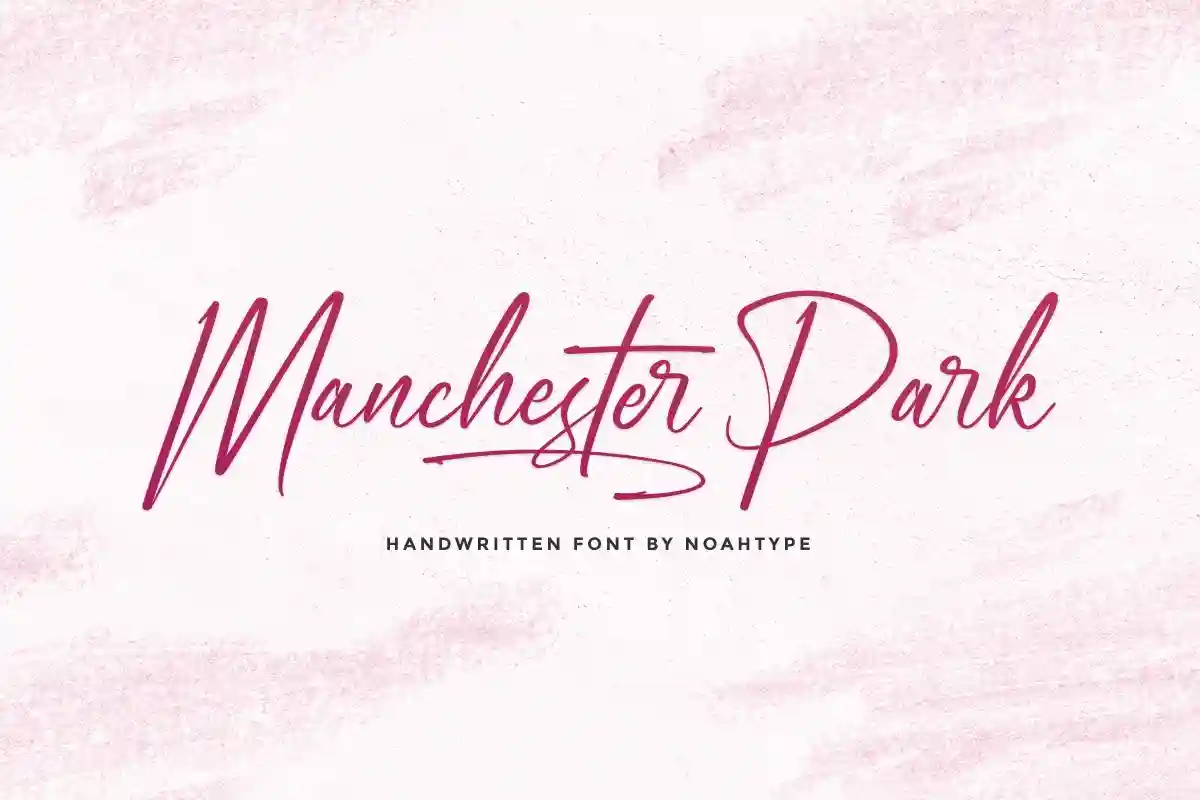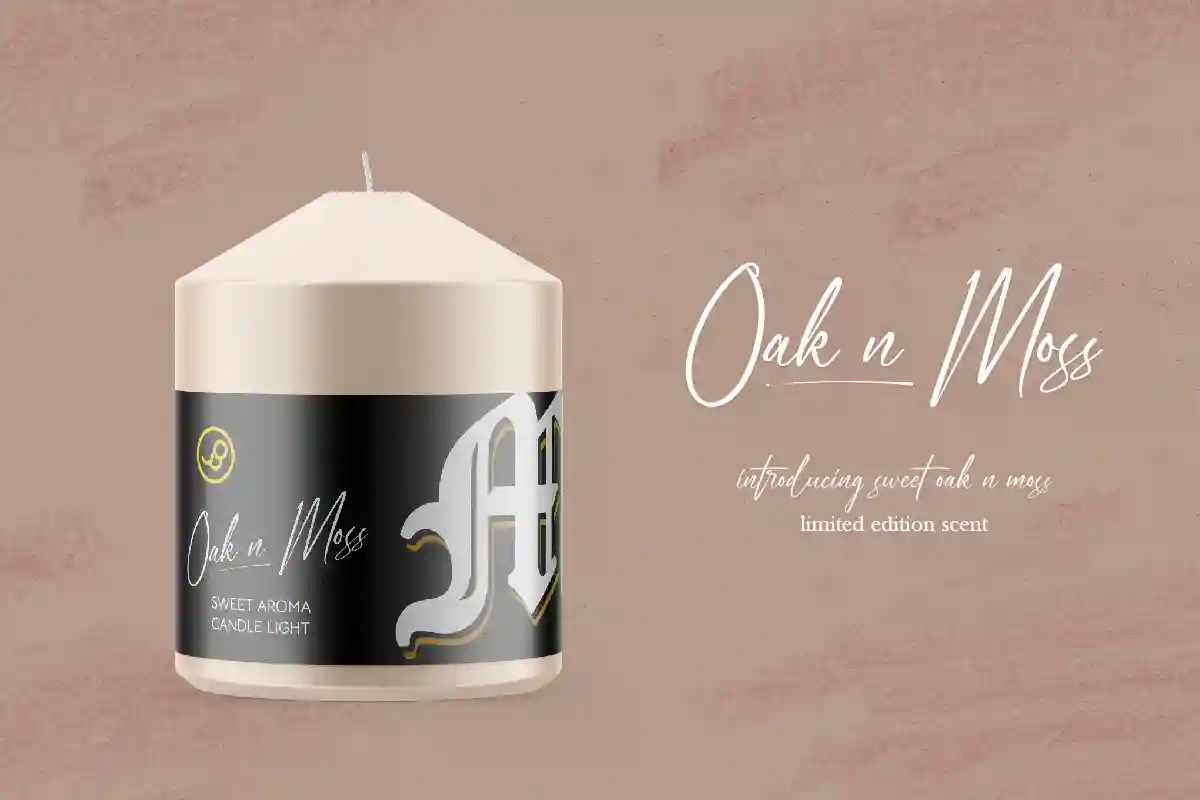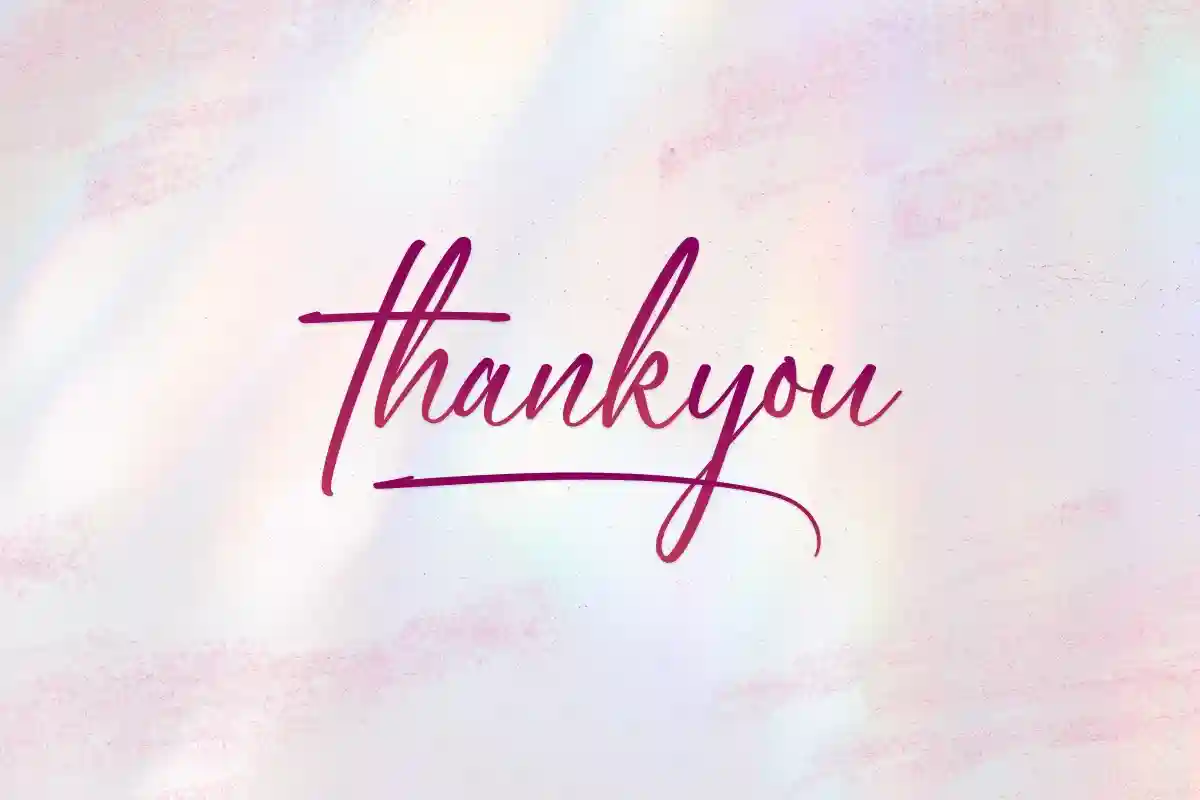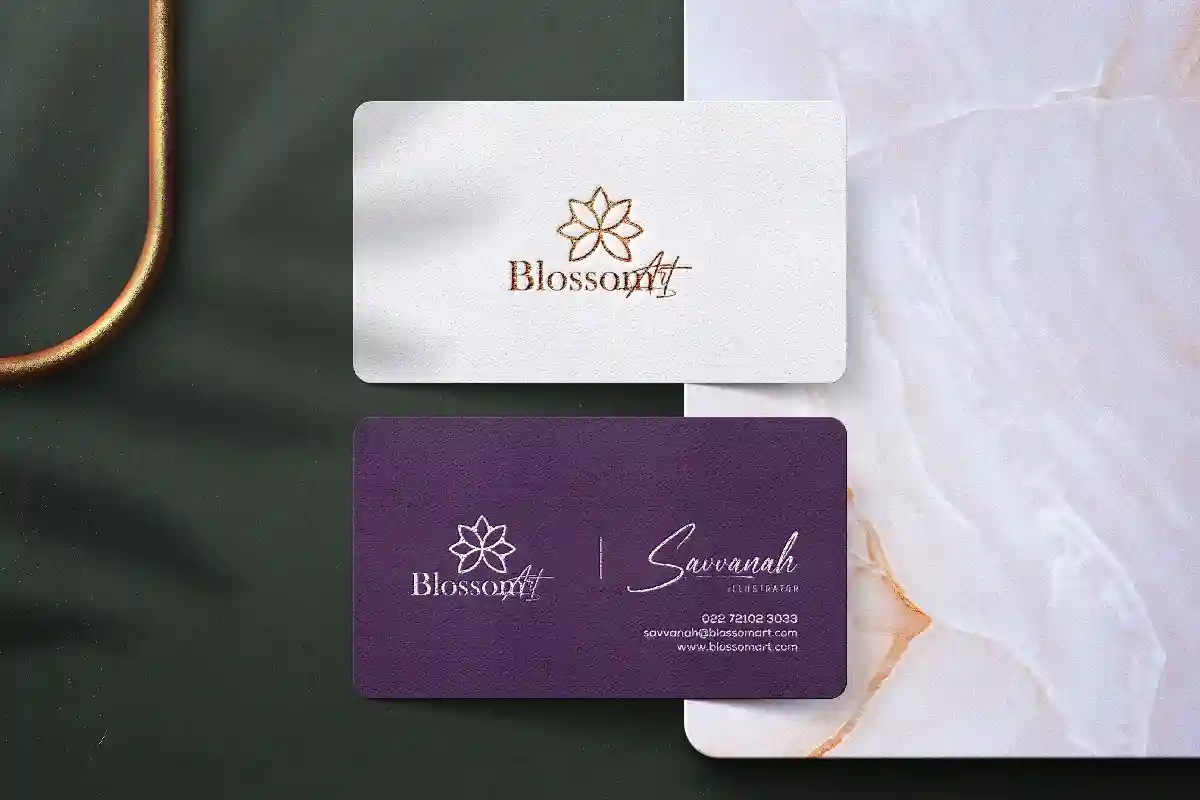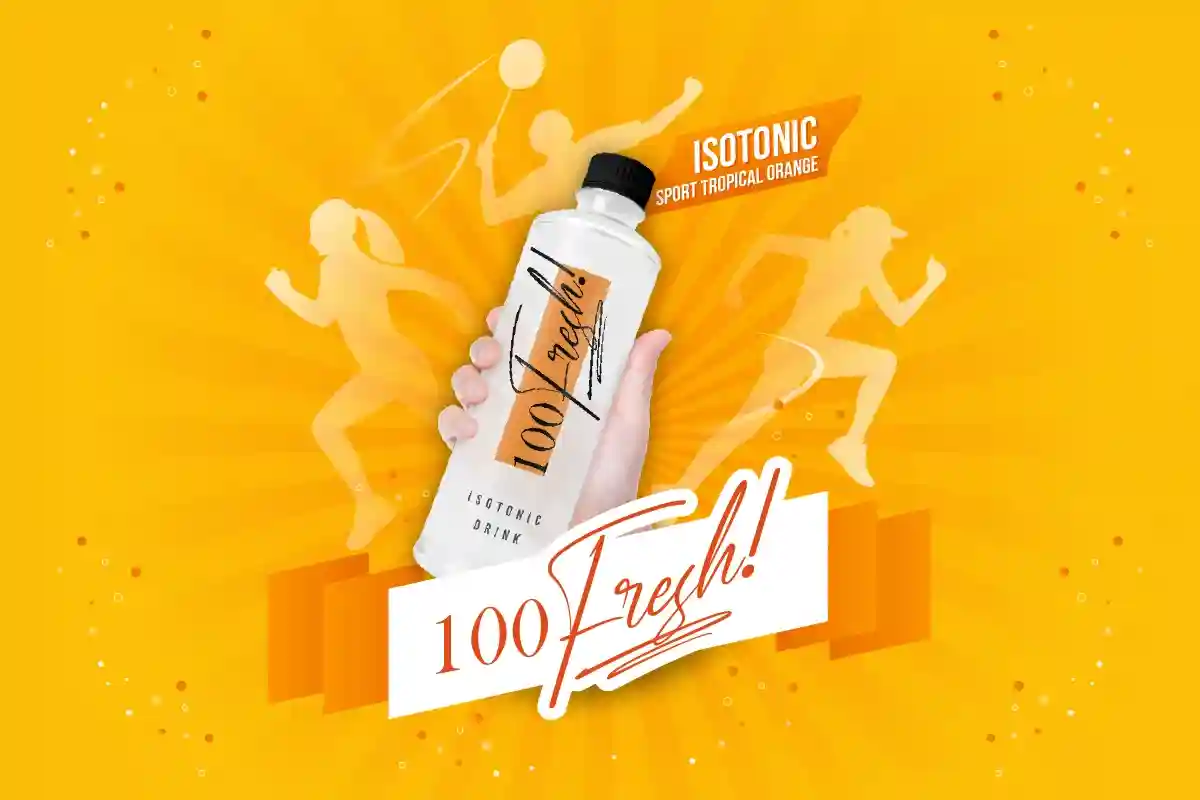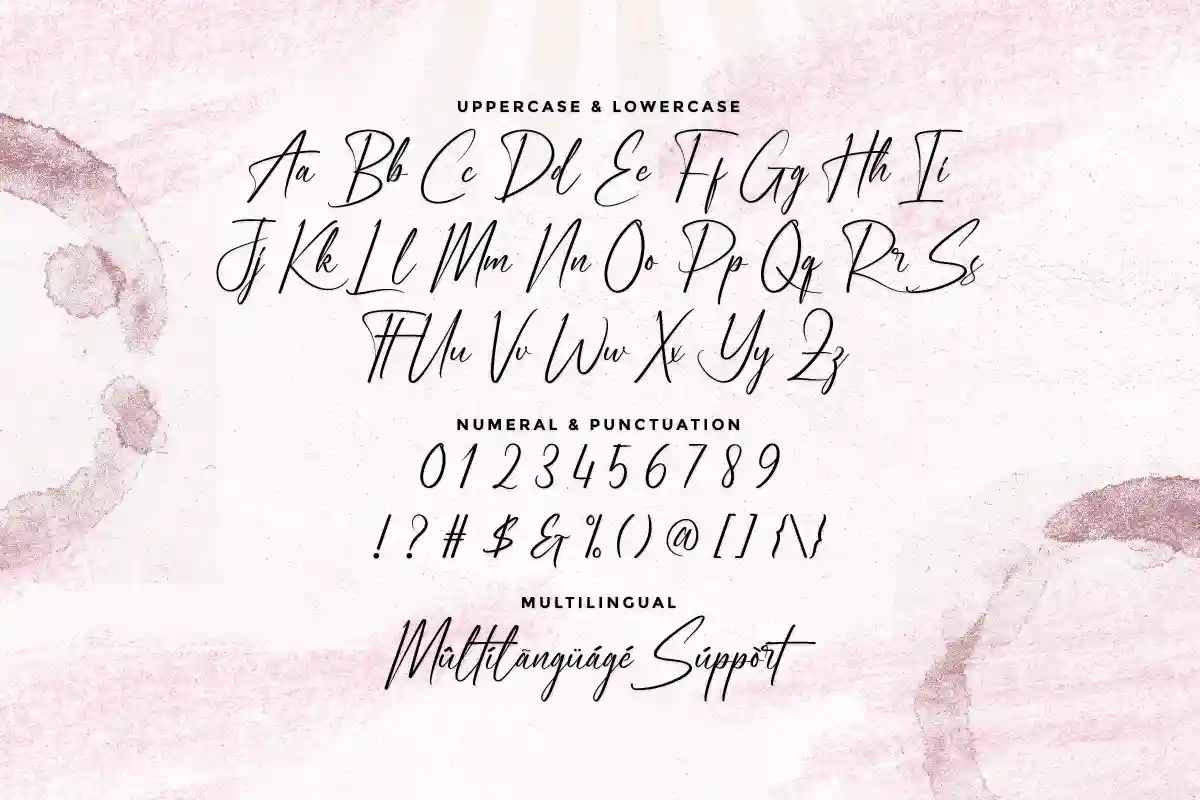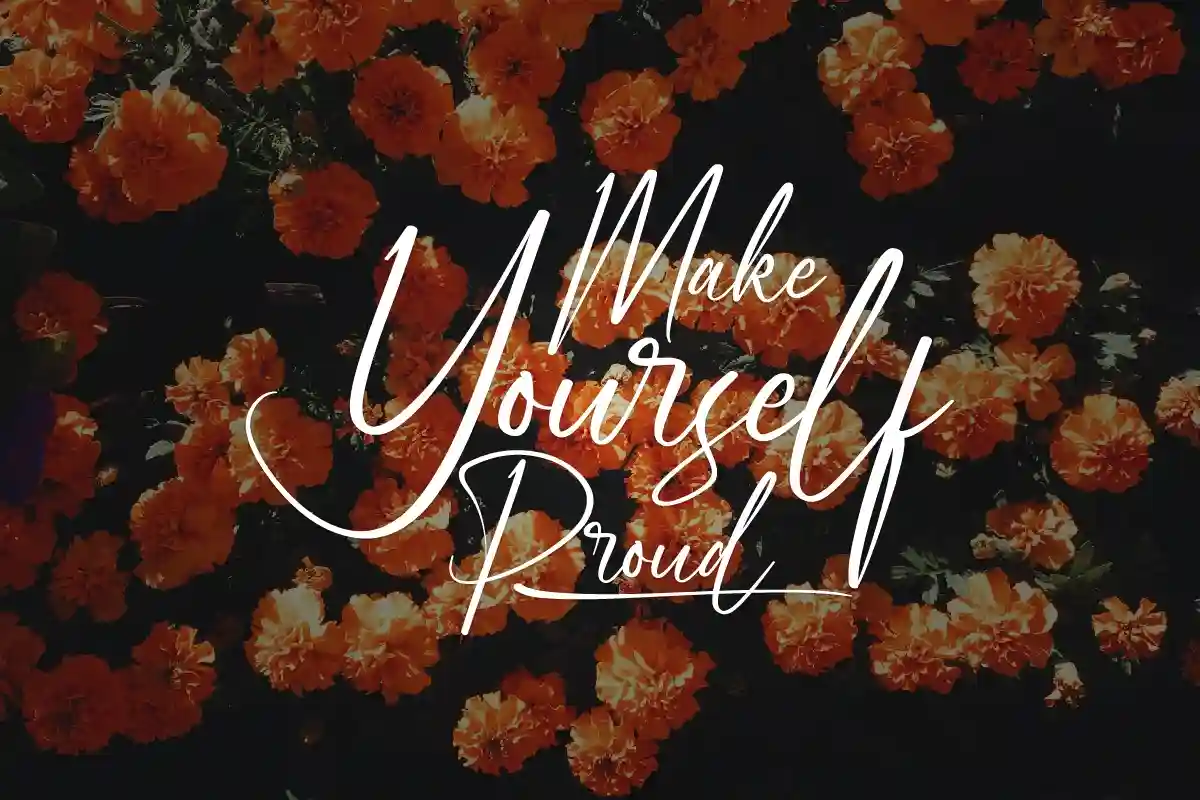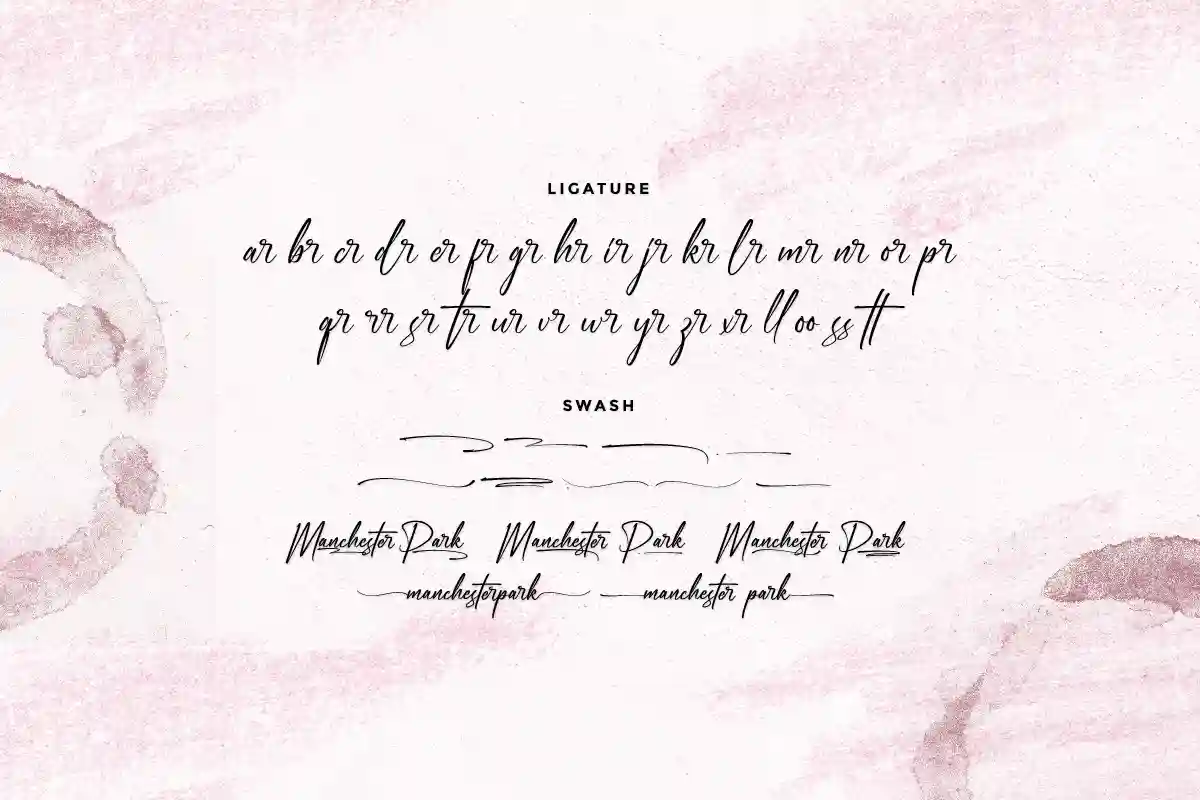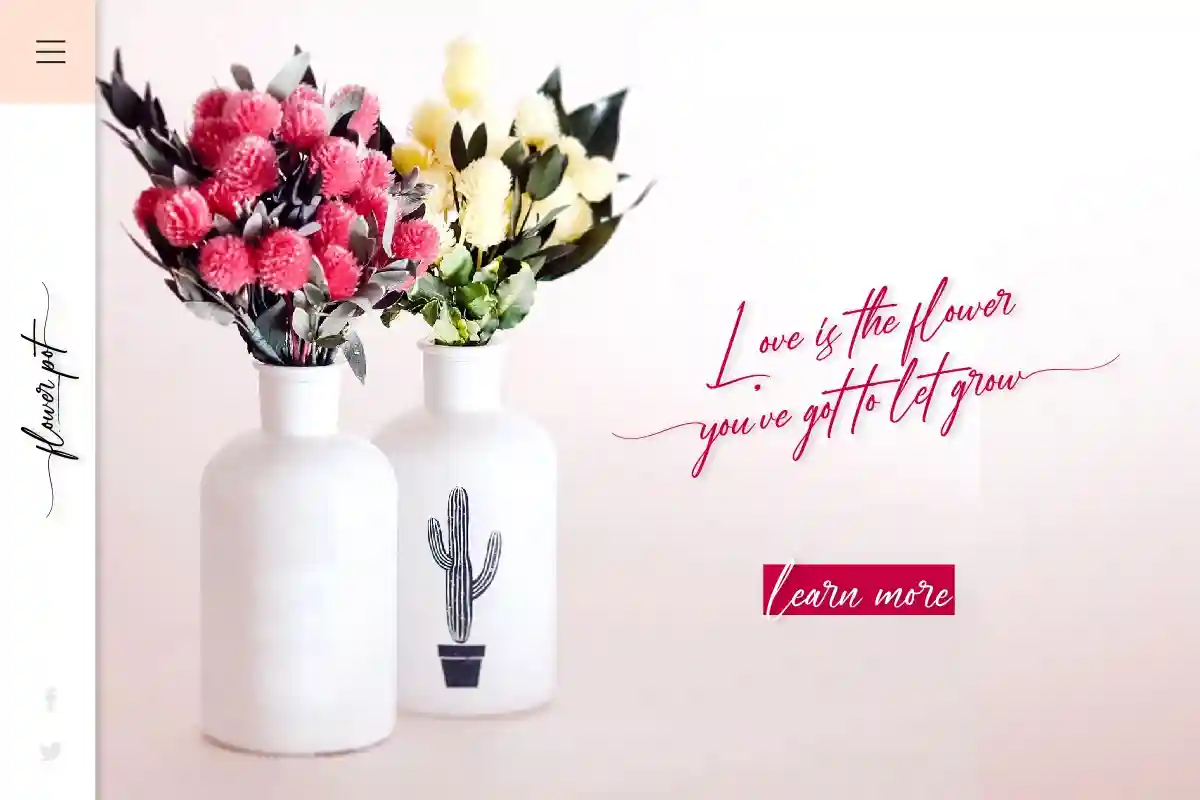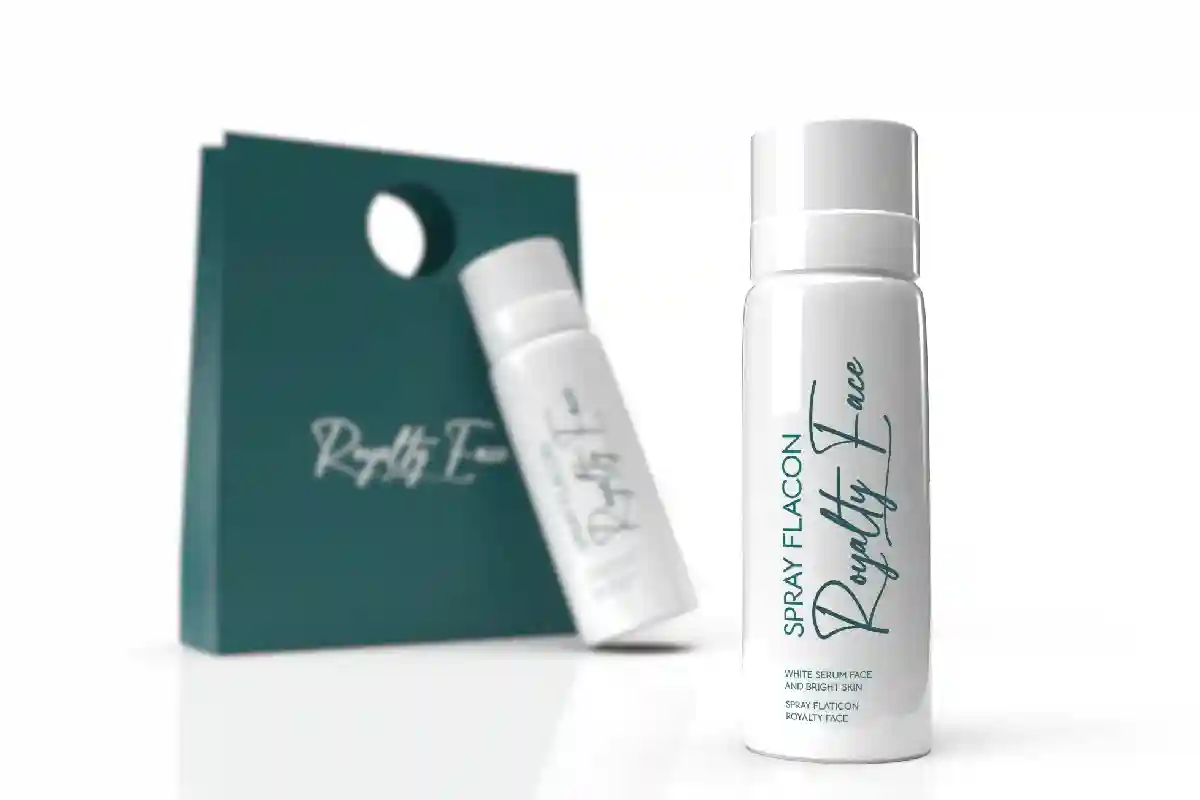
Manchester Park Font
Manchester Park is a lovely calligraphy font script with sophisticated characters , stylish swash and gorgeous alternates. This is perfect for invitation calligraphy, luxury branding, fashion promotions, song tittle, and many more. This font is crafted carefully in every its single scratch, created to look as close to a natural handwritten script so that it can create the perfect combination on each glyph. When we make this font, we really want to create a touch that is so free-flowing that it gives a natural impression on its use later. For example, if you want letter ‘s’ that has a flow sketch with letter ‘t’, you can find it in ‘st’ ligature glyph (just type in the text form below for trying). This awesome script is for anyone who are needing of elegance and stylish for their designs.
Manchester Park Font includes full set of Uppercase and Lowercase Basic Characters, Numerals and Punctuation. Also it contains ligatures and  alternates characters to perfectly make natural calligraphy look that add more beautiful and aesthetic fonts to perfect your extraordinary project. Manchester Park will be awesome for wedding, engagement, branding, invitations, florist, hair stylish, makeup artist, event organizer, movie, music, festival, promotions, social media etc
Manchester Park Calligraphy Font supports multilingual languages (including multiple currency symbols). With a simple installation, Manchester Park Font will be ready to use both on Windows machine or Mac. In order to use alternative characters, usually we just need to block the end letters and select alternative letters on glyphs option. It really common in almost any software (Character Map for Windows and Font Book for Mac.). It work well on Adobe software such as Illustrator, Photoshop and several other software.